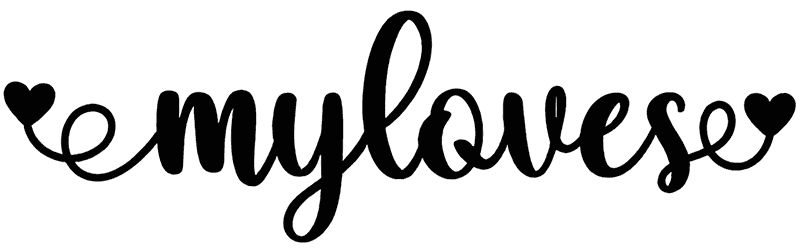
Myloves Font
Look at this adorable option with a cute mood, which is called Myloves. With sweet twisted lines, this love font can be an ideal face for classic or modern designs. This script font offers almost full characters and is able to liven your contexts of intended projects from wedding cards to product logos.